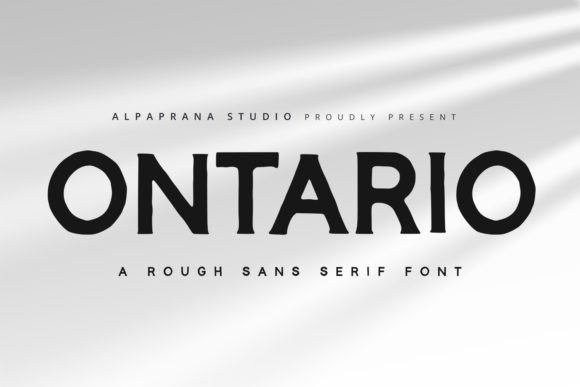
Introducing Ontario Font - The Signature Style for Your Creative Endeavors
In a world saturated with digital content, standing out from the crowd has become a daunting task. Whether you're a graphic designer, a passionate crafter, or an ambitious entrepreneur, your creations deserve a unique identity that resonates with your audience. Enter Ontario Font, the game-changer that will elevate your designs to new heights of sophistication and charm.
Crafted with meticulous attention to detail by the talented alpapranastudio, Ontario Font exudes an aura of retro-modernism that is both timeless and captivating. Its rough sans serif structure lends an air of authenticity and ruggedness, while its carefully curated curves hint at a hidden elegance that is sure to leave a lasting impression.
As a sans serif font, Ontario Font possesses an inherent versatility that makes it suitable for a wide range of creative projects. Whether you're designing a captivating logo that will leave a lasting impression or crafting eye-catching posters that demand attention, Ontario Font has the power to transform your vision into a tangible masterpiece.
With its innate charm and undeniable versatility, Ontario Font is the perfect choice for those seeking to make a statement with their designs. From branding and lettering to logotypes and packaging, Ontario Font seamlessly adapts to your creative needs, ensuring that your message is conveyed with flair and impact.
So, if you're ready to embark on a creative journey where your designs shine with originality and leave an enduring legacy, embrace Ontario Font as your trusted companion. Let its retro-modern aesthetics captivate your audience and propel your creations to the forefront of excellence.